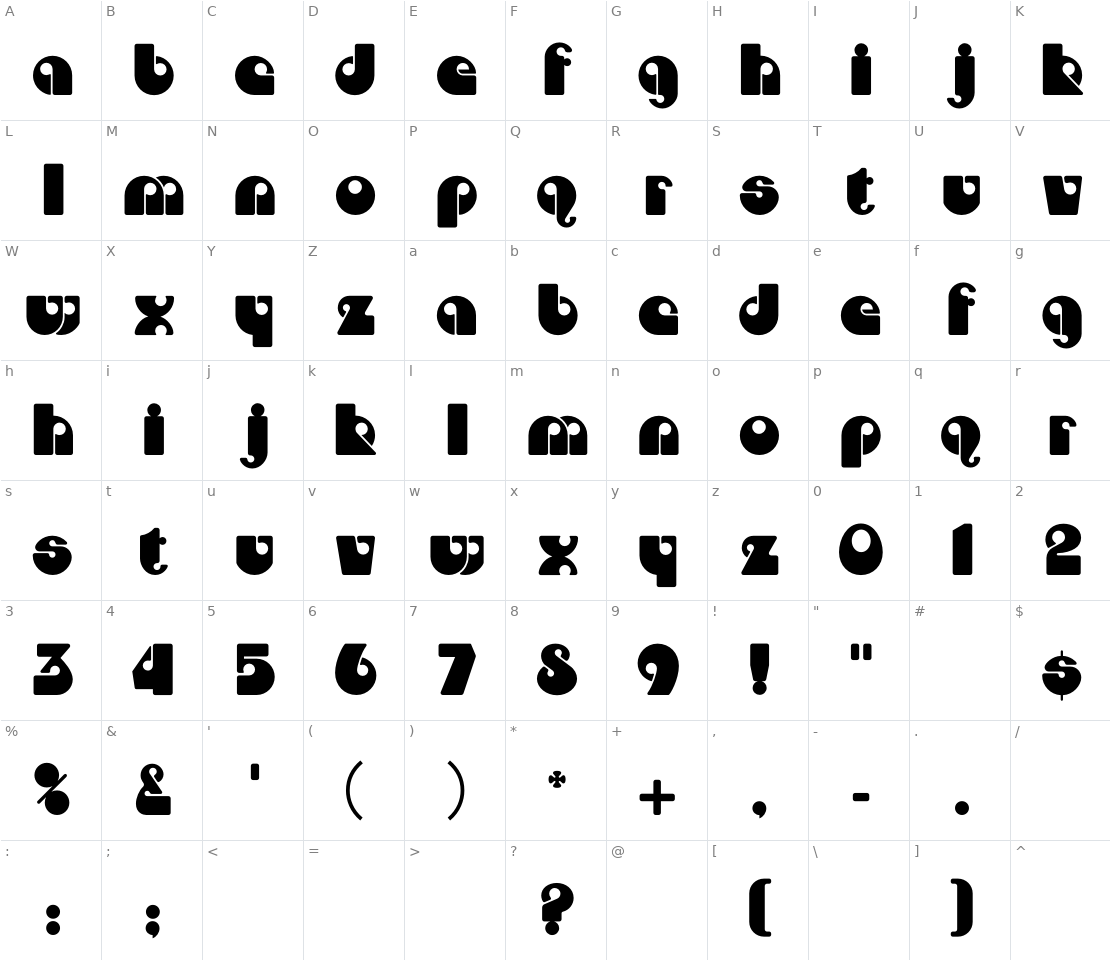
Dojo CP
by ClaudeP
Dojo CP is a heavy, rounded geometric display face from ClaudeP with chunky letterforms that carry serious visual weight while staying approachable thanks to their soft, rounded edges. The black weight and bold proportions make it built for impact at large sizes, landing naturally in headlines, posters, and branding where you need something that feels modern and substantial without sharp edges.